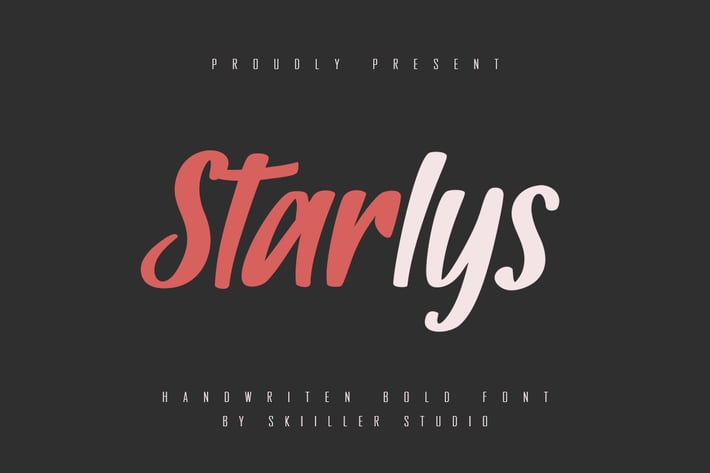
Starlys - Bold Handwritten Font
Starlys Handwritten Bold Font. It looks beautiful on a variety of designs requiring a personalized style, such as wedding invitations, weddings, logos and so on. This font is PUA encoded which means you can access all of the glyphs and swashes with ease!
+ Ligature
+ Basic Latin Language Support (AÀÁÂÃÄÅCÇDÐEÈÉÊËIÌÍÎÏÑOØÒÓÔÕÖUÙÜÚÛWYÝŸÆß )